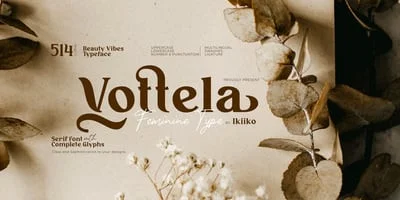
Vottela Font
Vottela Font is perfect for premium fashion brands, luxury cosmetics packaging, sophisticated jewelry campaigns, high-end lifestyle magazines, elegant boutique identity, refined restaurant branding, upscale wellness centers, exclusive event materials, and graceful social media content. This distinguished typeface brings refined elegance and luxurious sophistication to both digital and print design applications.
Vottela Font is exciting because it embodies the essence of understated luxury and refined taste, making it an exceptional choice for designers who want to convey premium quality with authentic sophisticated appeal. Its graceful letterforms and polished character provide the perfect combination of luxurious elegance and functional versatility, ensuring your projects communicate refinement, exclusivity, and premium excellence that resonates with discerning audiences seeking genuine luxury experiences and sophisticated lifestyle products.
The Vottela Font family includes elegant weight variations and luxury elements, featuring light, regular, medium, and bold weights with complementary italic styles, sophisticated ligatures, and refined decorative flourishes. Each style maintains consistent premium aesthetics while offering flexibility for different luxury applications, allowing designers to create distinguished visual systems that reflect high-end values and sophisticated design principles.
Whether you're designing for luxury brands, premium services, or exclusive businesses, Vottela Font delivers authentic luxury appeal and sophisticated elegance that connects with audiences seeking genuine premium experiences. This premium typeface offers designers the refined grace and luxurious sophistication needed to create designs that communicate high-end quality, exclusive appeal, and luxury excellence effectively. The font's distinguished character makes it perfect for luxury branding, premium campaigns, and sophisticated applications where authentic luxury credibility is essential. Download Vottela Font today and elevate your creative projects with genuine luxury sophistication and premium typography excellence that defines high-end design standards.